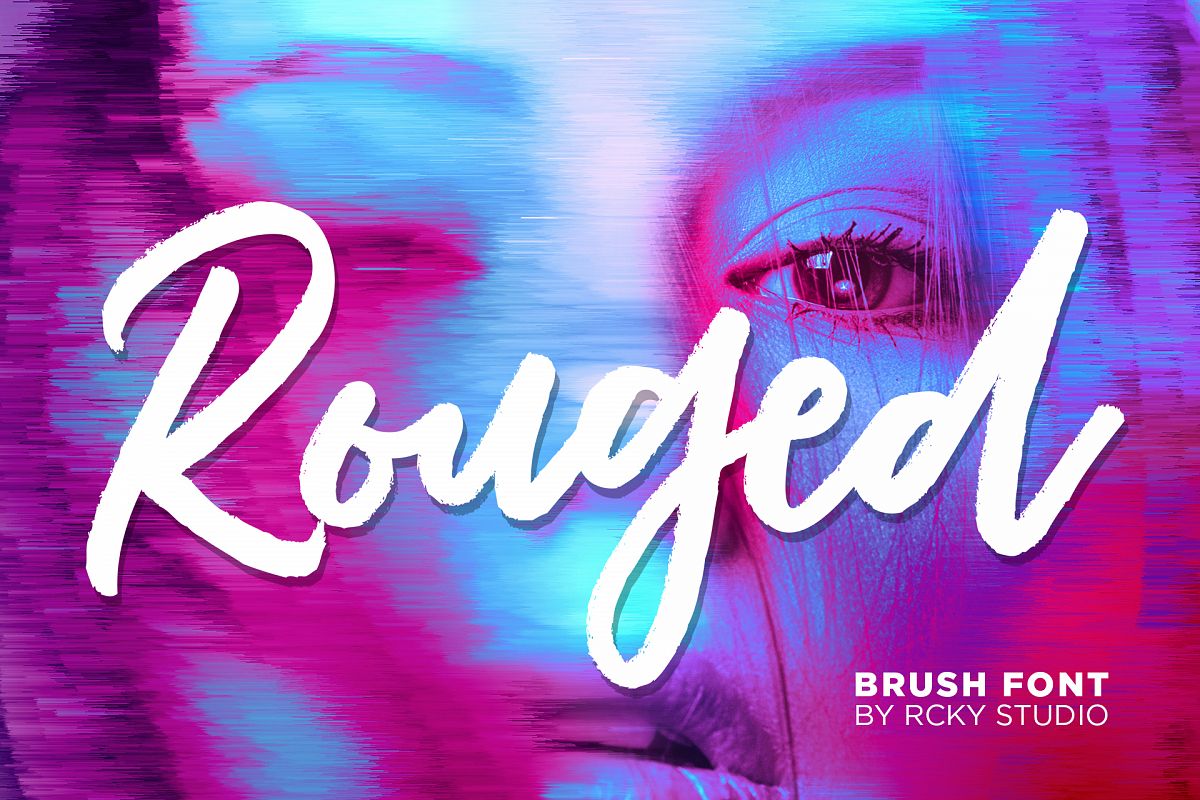
Rouged Font
Rouged is a handbrushed font, contemporary approach to design, handmade natural with an irregular baseline. Suitable for use in title design. Such as apparel, invitations, books tittle, stationery design, quotes, branding, logos, greeting card, t-shirt, packaging design, poster and more. Rouged includes a complete set of uppercase and lowercase letters, as well as multi-language support, numbers, punctuation, ligatures. Thanks so much for looking and please let me know if you have any questions.